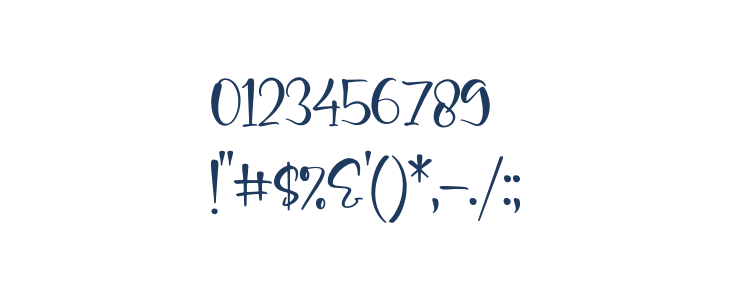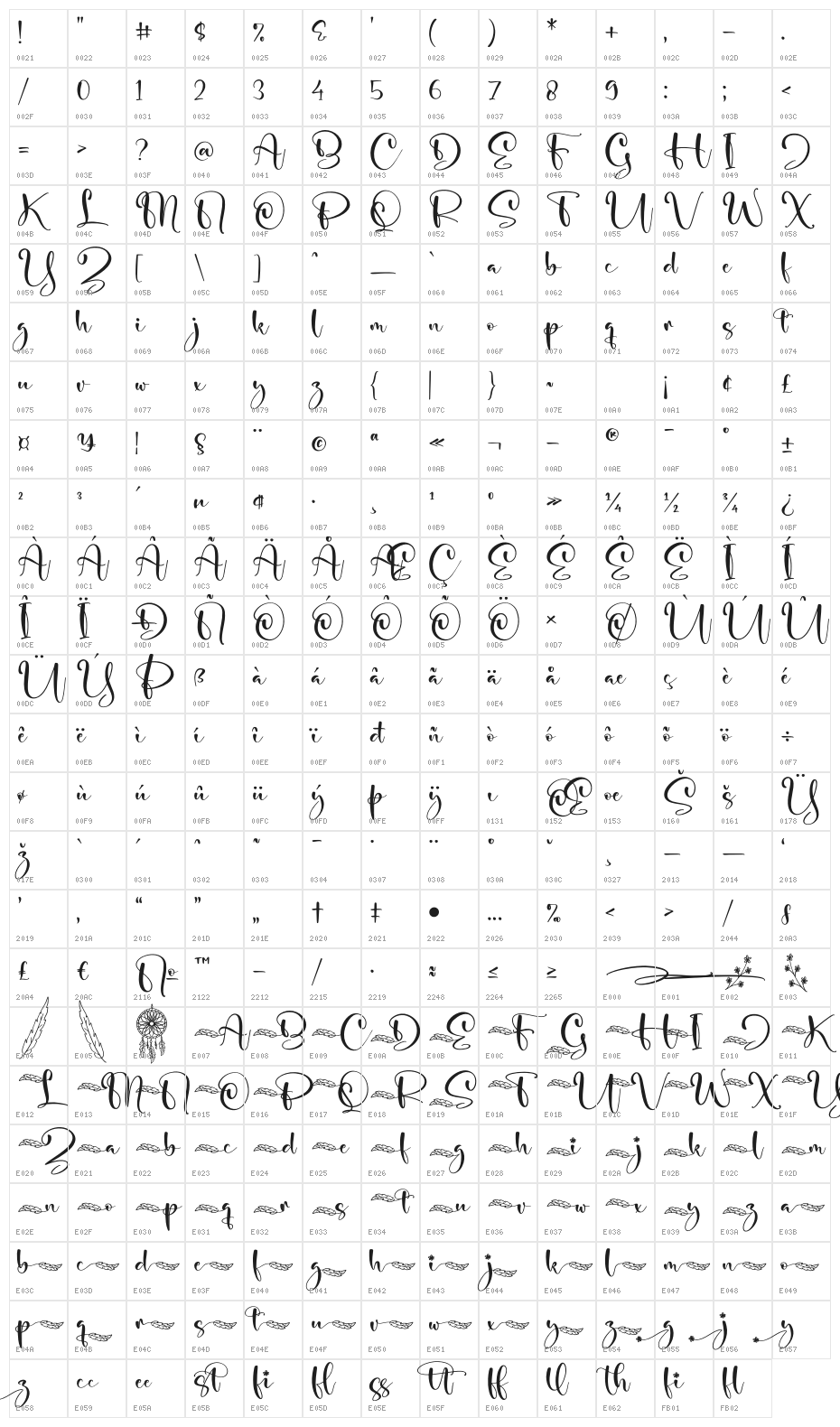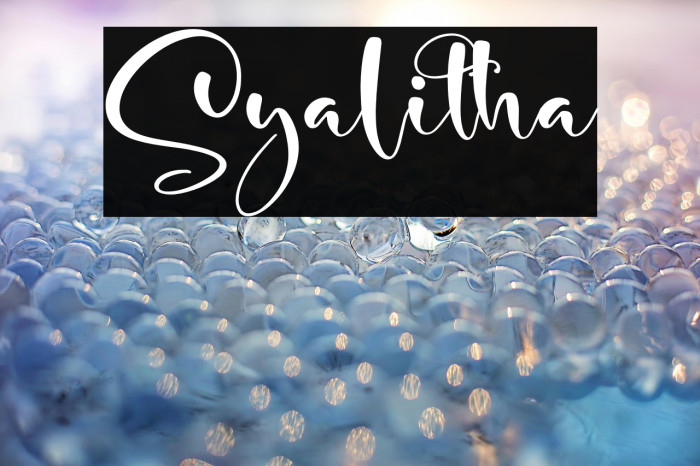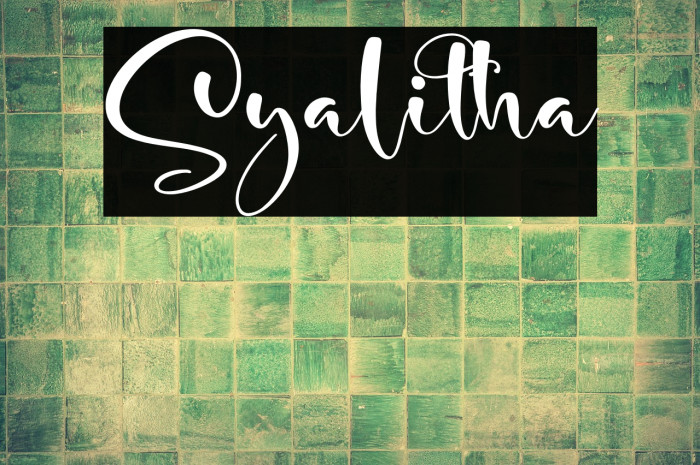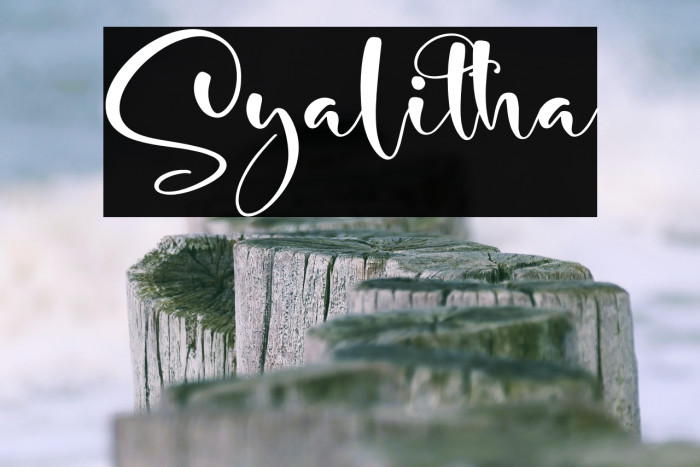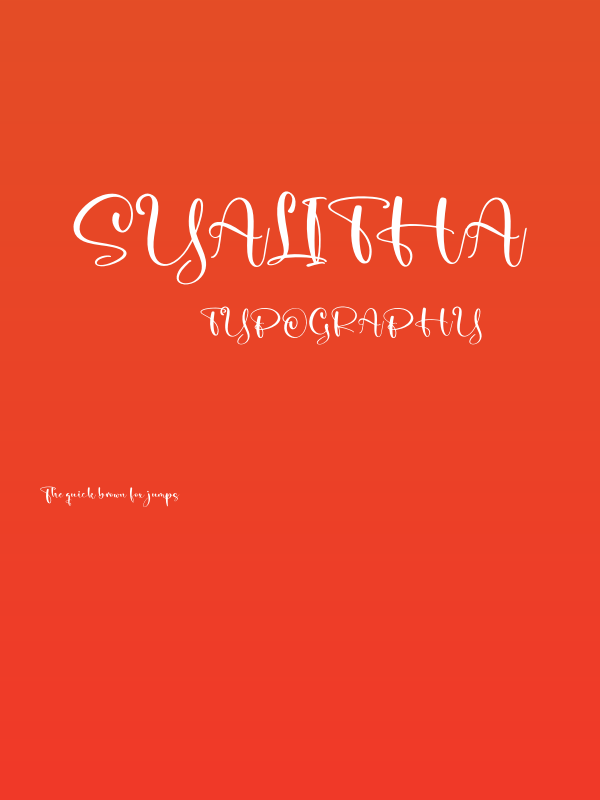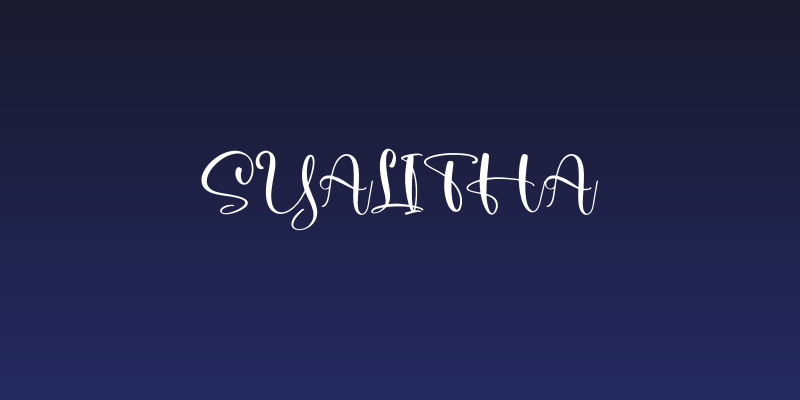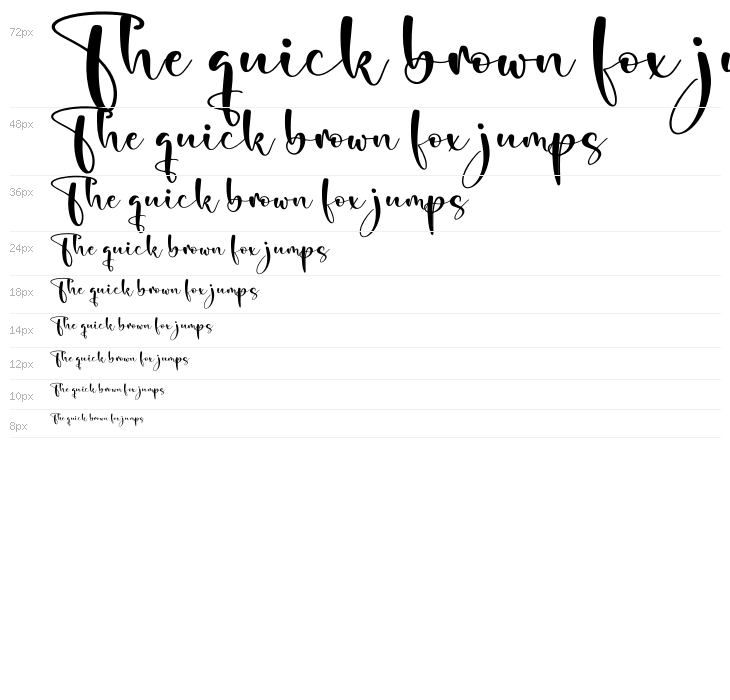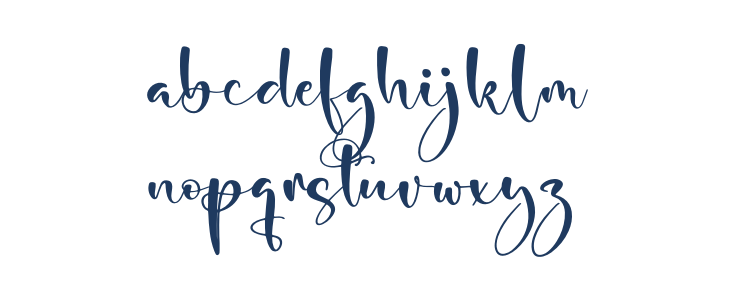
Syalitha Font
Syalitha Description
This font features an elegant and flowing script style that combines both uppercase and lowercase letters with a distinct flair. The uppercase letters are characterized by their ornate loops and swirls, giving them a sophisticated and artistic appearance. The lowercase letters maintain a consistent flow, with some characters extending below the baseline, adding to the font's graceful aesthetic. The numerals are designed to match the overall style, with a slight slant and decorative elements. Special characters are included, maintaining the same artistic and fluid design. This font is ideal for projects that require a touch of elegance and creativity.
| Overall Style | Elegant, Artistic |
| Use Case | Logos, Invitations, Decorative text |
| Proposed Projects | Wedding invitations, greeting cards, branding, and logo design. |